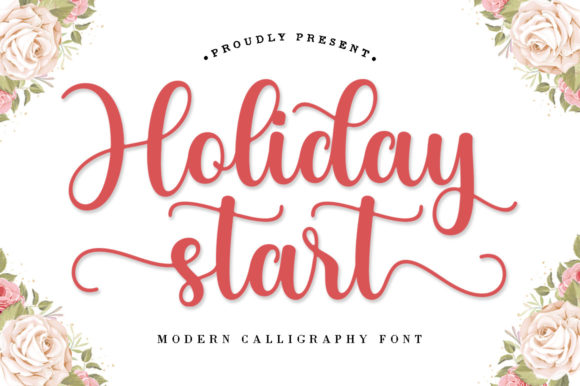
Get ready to embark on a captivating typographic journey with Holiday Start, a spending and sweet calligraphy typeface that will add an enchanting touch to your creative designs. This font, meticulously crafted by the talented Suza Studio, is a symphony of elegance and charm, featuring characters that dance along the baseline with playful grace.
Immerse yourself in the world of branding and let Holiday Start elevate your visual identity to new heights. Its enchanting script style exudes sophistication and creativity, leaving a lasting impression on your audience. Whether you're designing logos, invitations, social media graphics, or any other branding material, Holiday Start will transform your words into works of art.
With Holiday Start, you'll discover a font that effortlessly captures the essence of joy and celebration. Its delicate strokes and intricate details evoke a sense of warmth and happiness, making it the perfect choice for projects that aim to spread positivity and cheer. Let your designs radiate with festive charm as Holiday Start brings your creative vision to life.
Unleash the power of Holiday Start's PUA encoding and unlock a treasure trove of amazing glyphs and ligatures. With this feature, you'll have access to a diverse range of typographic elements that will add depth and dimension to your designs. Experiment with different combinations to create unique and eye-catching compositions that leave your audience spellbound.
Elevate your branding efforts and embark on a creative adventure with Holiday Start. Let its enchanting script style captivate your audience and leave a lasting impression. Discover the endless possibilities that await you as you explore the world of typography with this remarkable font.